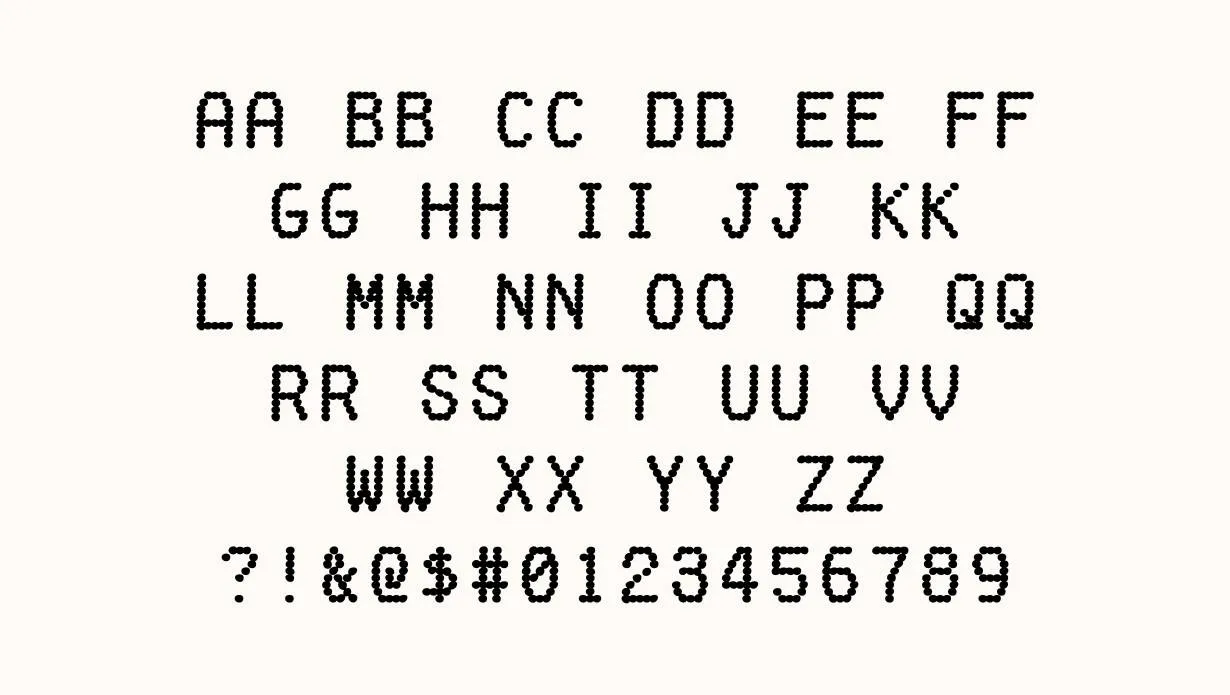
Receipt font is like a practical and straightforward assistant for your words. The letters have a simple and clear design, making them suitable for creating receipts, invoices, or any documents that require easy readability. It’s a reliable choice for situations where clarity and precision are important.
This font is like the well-organized shelves of a store, where every item has its place. It’s like using words to create a systematic and efficient display of information. Receipt font brings a sense of order and professionalism to your words, making it suitable for documents that require accuracy.